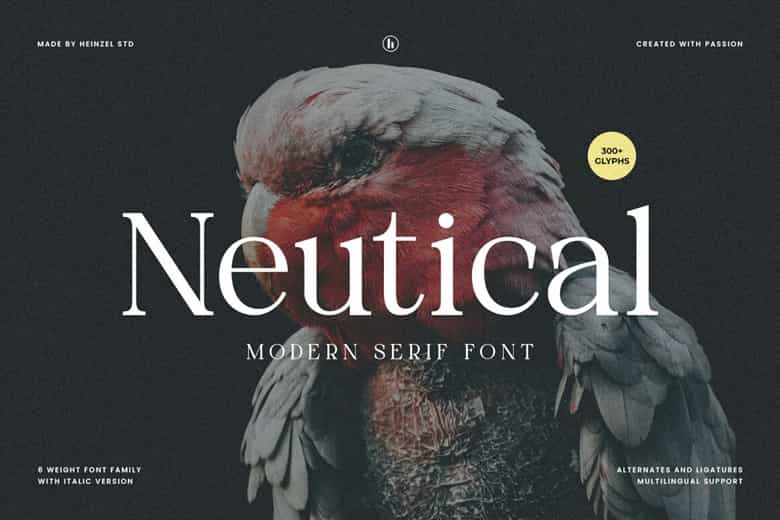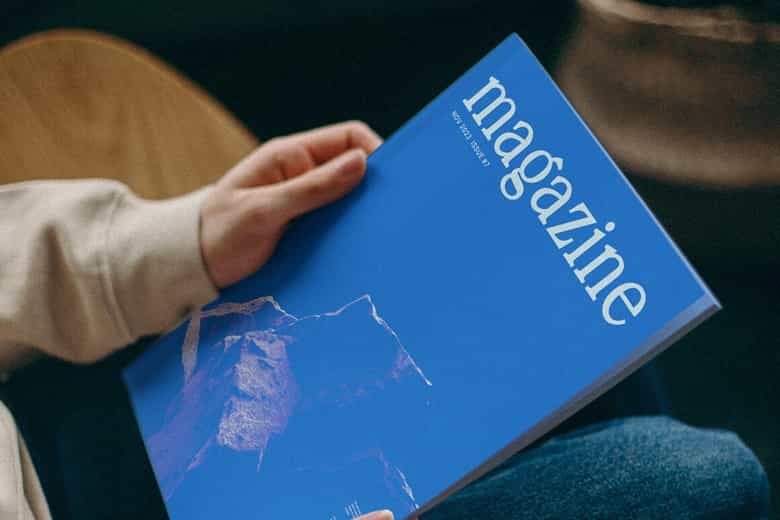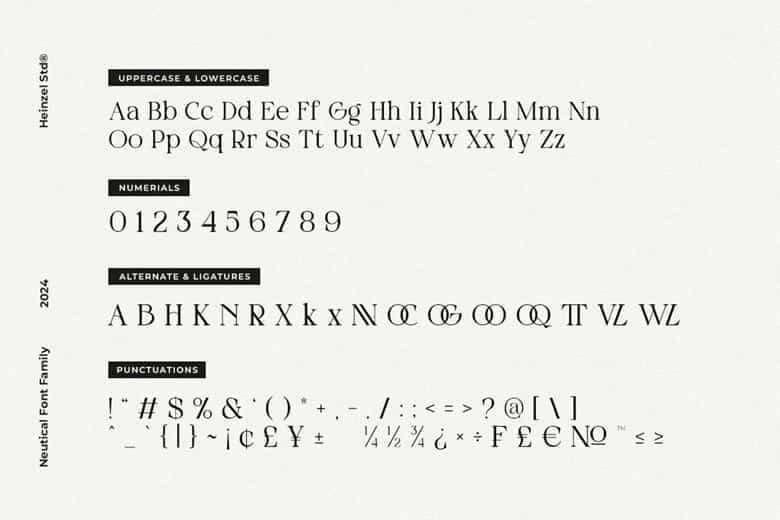
Neutical is designed as a new modern serif font with both delicate and bold look of the contemporary typefaces. That’s why it turns into an amazing tool for creating beautiful logos, eye-catching headlines, as well as advanced branding elements.